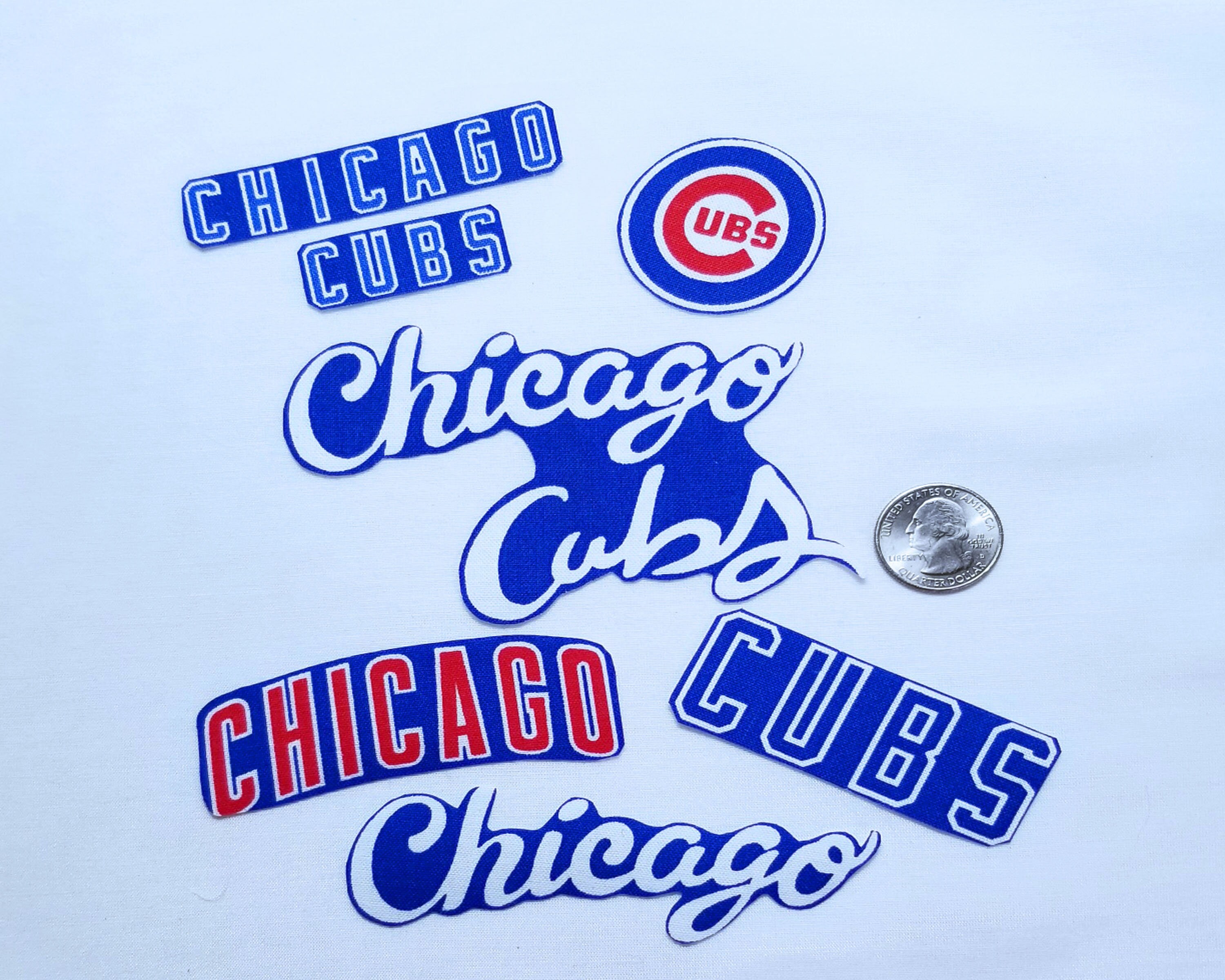
Chicago Cubs Font
Chicago Cubs Font - A second user replies with the identification. Web a user asks for the font of the chicago cubs logo on a forum thread. Web learn about the history and style of the chicago cubs font, a gothic display font created by neographik and.